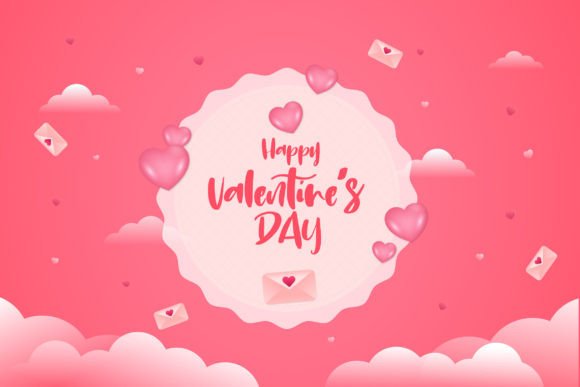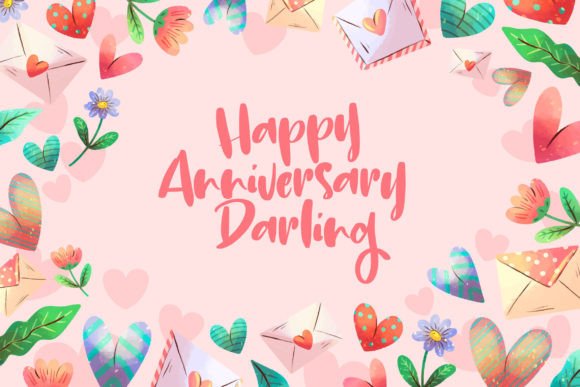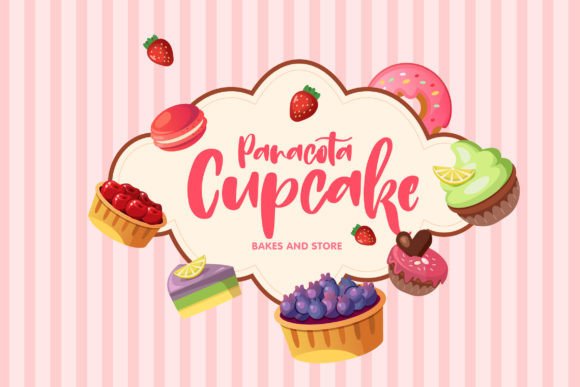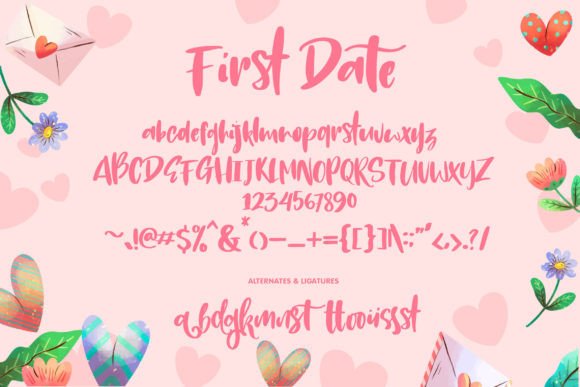
Introduction to First Date Font
First Date is a lovely and cute handwritten font.
With its playful curves and charming details, it adds a touch of whimsy to any design project Perfect for greeting cards, social media graphics, and more, this font is sure to bring a smile to anyoneโs face.
First Date Font offers exceptional quality and versatility, making it a valuable addition to your design toolkit. Whether you’re creating for personal projects or commercial use, First Date Font delivers professional results.